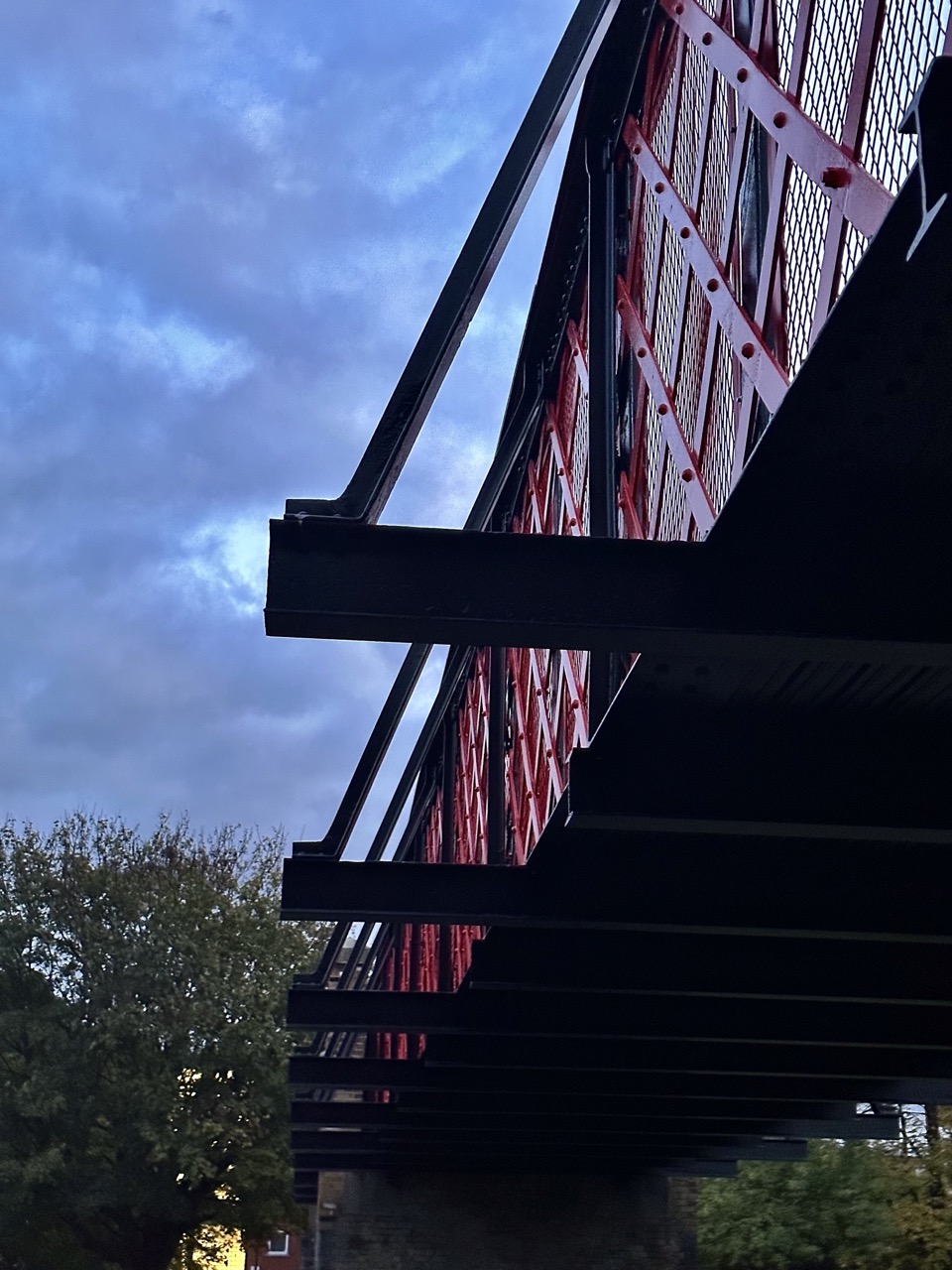
The shape of the Old Canal Bridge inspires this font called Giant. This rebuilt bridge is no longer a transportation structure connecting different places, but a heritage sculpture with more than a hundred years of history standing across the Canal. Since it lost its traffic significance, it resembles a trapezium architecture. It has solid foundations on both sides and a flat footpath in the middle, lifting people firmly like a giant. Its presence throughout the park cannot be ignored, serving as a prominent landmark that reminds people of its history of spanning wars.